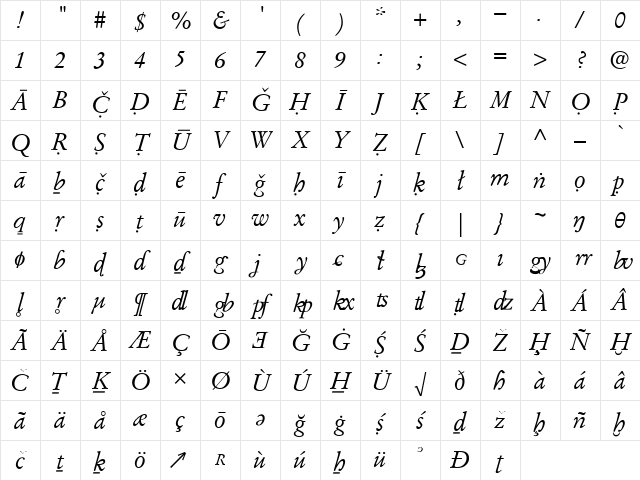
EAE-Garamond Italic Free Font
EAE-Garamond Italic
Design Context for EAE-Garamond
EAE-Garamond is a composed and adaptable typeface that performs quietly and consistently across a wide range of design contexts. The slanted form adds forward momentum and visual energy.
Pro Tip: Use EAE-Garamond for emphasis, pull quotes, and subheadings where its slanted energy can add rhythm to the layout.